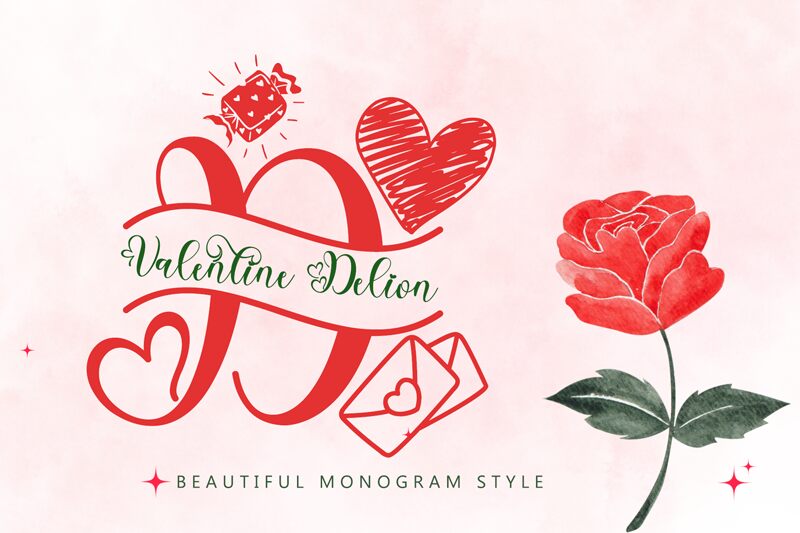
Valentine Delion Monogram font family by Yoga Letter includes two stylish font styles with a sophisticated style. A free font family, it offers its users highly decorative designs and visuals with its romantic handmade letters so that they have plenty of gorgeous projects to work on with a single download.
Such a font family is highly influenced by traditions with its ornate display but that doesn’t stop it from introducing a modern dashing appearance that every designer will come to appreciate. Enriching greeting cards of different occasions with an established theme is possible, but this font family is always available for other branding designs, advertisements, invitations, stationery, typography art, and even web designs that demand a dashing presentation.